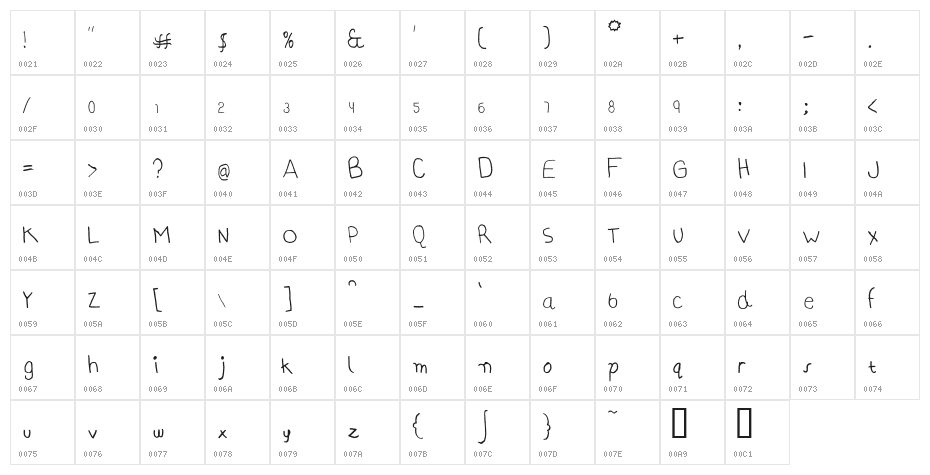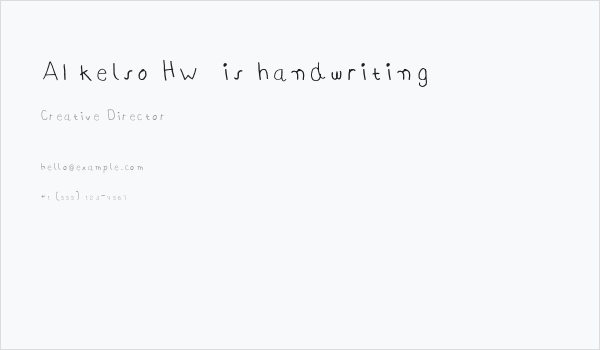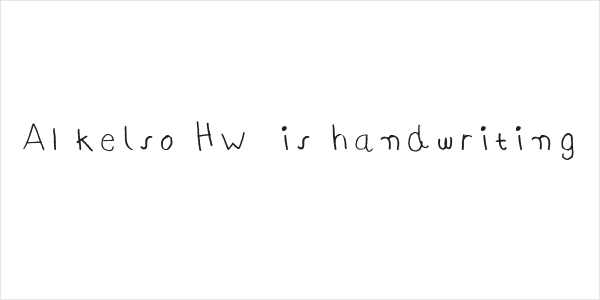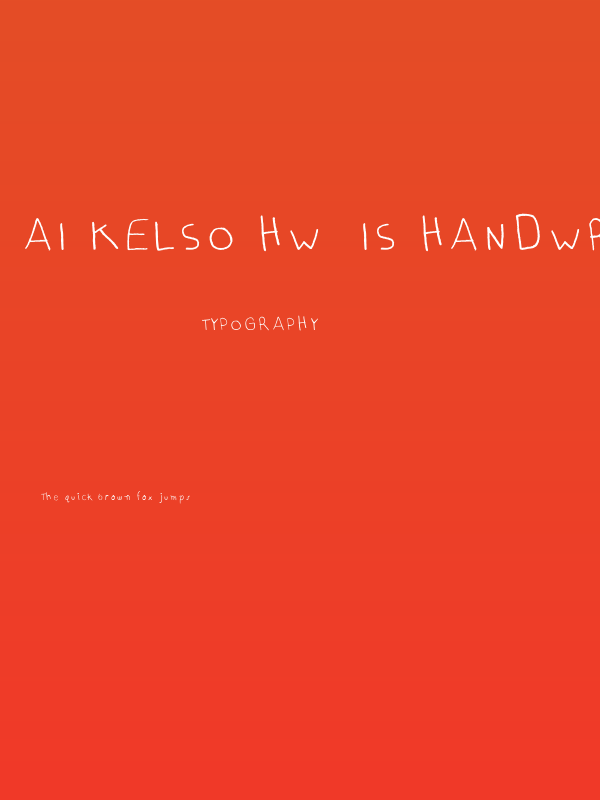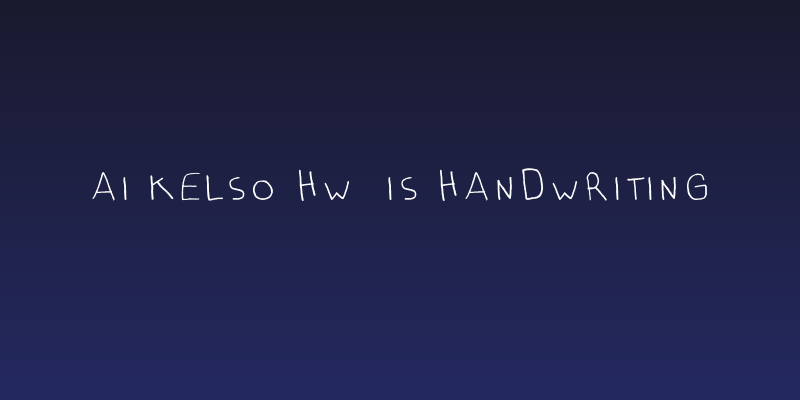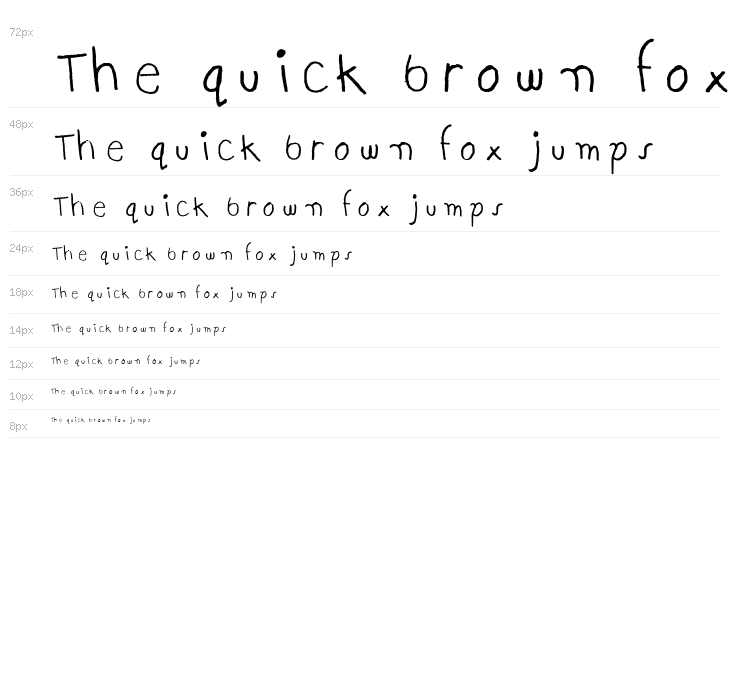
AI kelso HW is handwriting Font
AI kelso HW is handwriting Description
This font features a playful and casual handwritten style, characterized by its uneven strokes and organic flow. The letters have a whimsical and informal appearance, with varying heights and widths that mimic natural handwriting. The uppercase letters are bold and distinct, while the lowercase letters maintain a consistent yet relaxed form. Numbers and special characters follow the same playful theme, adding to the font's overall charm. The irregularities in the stroke thickness give it a dynamic and lively feel, making it suitable for creative and informal projects.